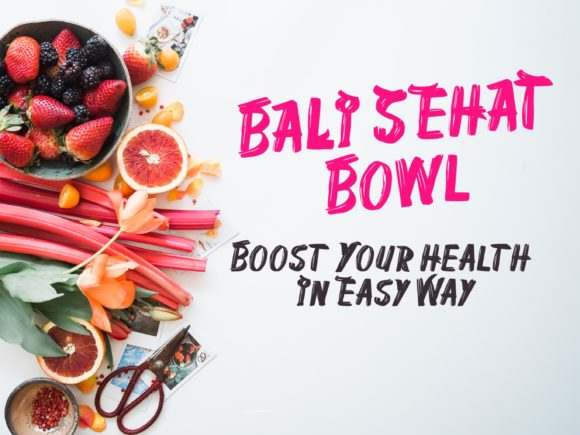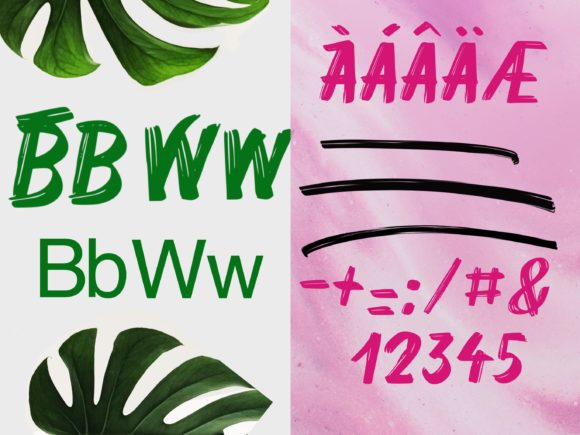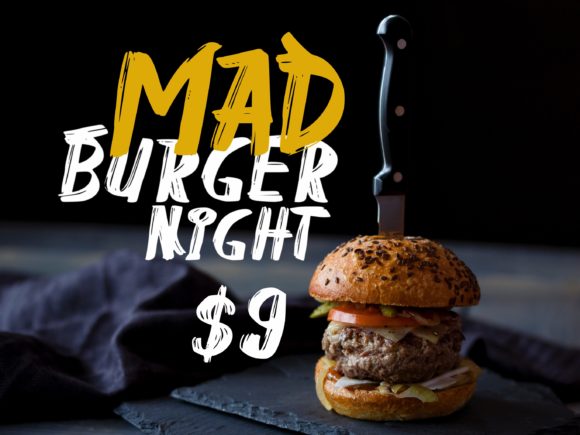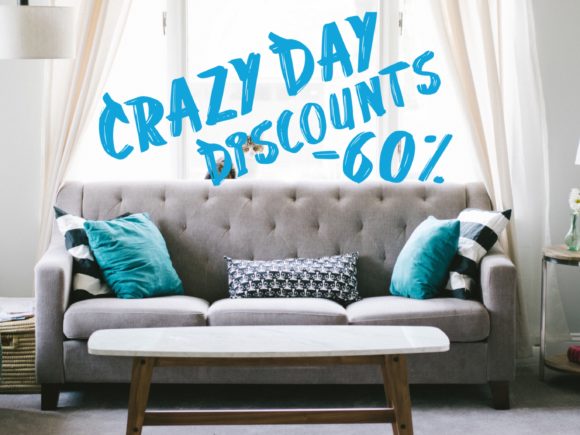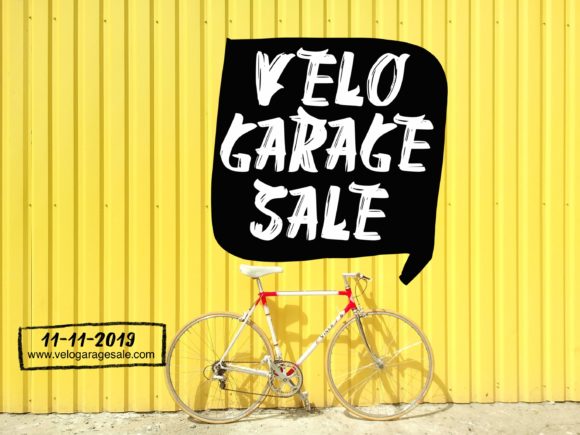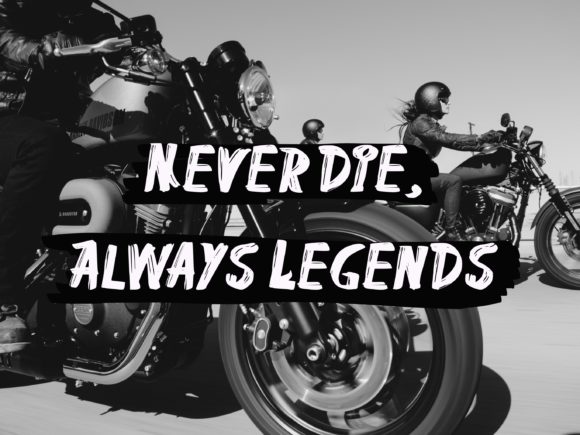
Introduction to Mana Font
Have you ever found yourself in the midst of a craft project, struggling to find the perfect font to bring your vision to life? I know I have. The search for that one special font can be overwhelming, but sometimes, it’s the simplest designs that make the biggest impact. This is where Mana Font comes in – a handbrush font that’s as unique as it is versatile.
About Mana Font
With its high quality design and transparent background, Mana Font is a valuable resource for any creative project. Whether you’re a seasoned designer or just starting out, this font is sure to add a special touch to your work. And the best part? It’s available for free download, making it an accessible design resource for anyone looking to elevate their craft.
Mana Font
- High-quality, professional font suitable for various creative projects
- Unique, modern design with a transparent background, ideal for graphic design and digital art
- Includes a range of glyphs and characters, making it suitable for multilingual projects
- Perfect for designers and artists looking for a free design resource with a high level of customization
Honest Review: Mana Font
As a designer, I’m always on the lookout for high-quality design resources that can elevate my creative projects. The Mana Font caught my attention, and I decided to give it a try. Here’s my honest review.
- ✨ The Mana Font offers a beautiful, unique design that’s perfect for projects that require a touch of fantasy or whimsy.
- ✨ The transparent background option allows for seamless integration with any design element.
- ⚠️ The Mana Font is limited to a single style, which may not be suitable for projects that require multiple font styles.
- ⚠️ The font may not be compatible with older software or systems, which could be a concern for designers working with legacy projects.
Overall, the Mana Font is a solid addition to any designer’s toolkit. While it has some limitations, its unique design and free download make it an excellent choice for creative projects. If you’re looking for a high-quality font that can add some magic to your designs, the Mana Font is definitely worth checking out.
Mana Font
Mana Font is a high-quality, free download that can elevate any creative project. This versatile design resource features a transparent background, making it easy to integrate into various designs.
Tips for Getting the Most Out of Mana Font
For the best results, use Mana Font in conjunction with other high-quality design resources. Experiment with different font sizes, colors, and combinations to create unique and eye-catching designs.
Mana Font is ideal for use in a variety of creative projects, including:
- Graphic design.
- Branding.
- Marketing materials.
- Website design.